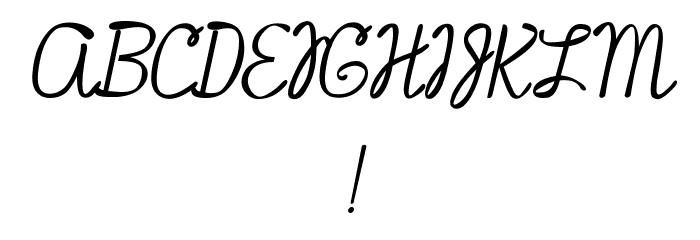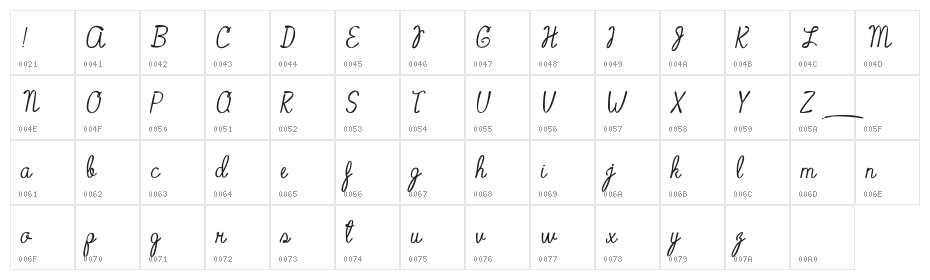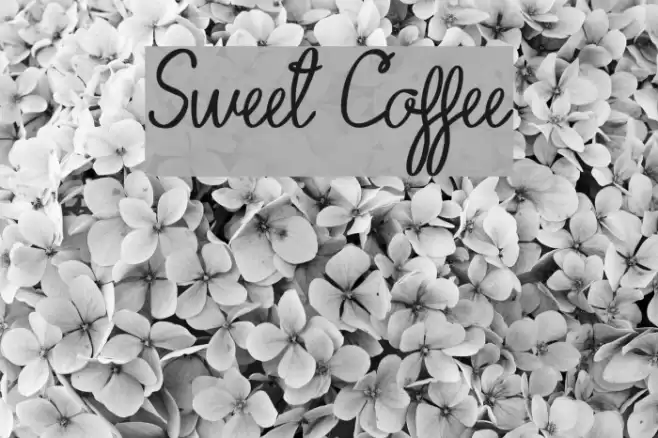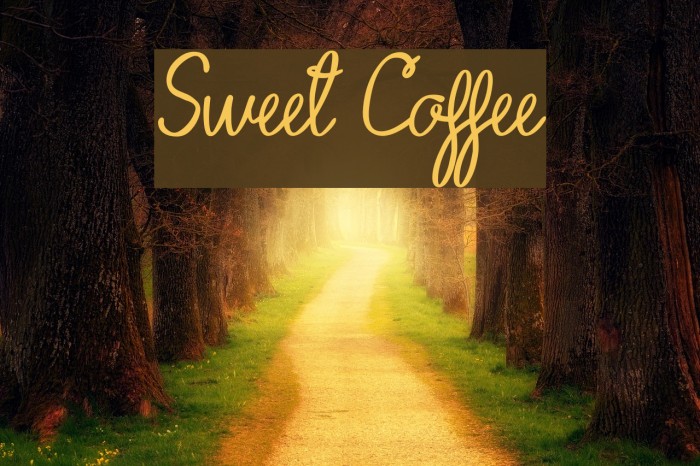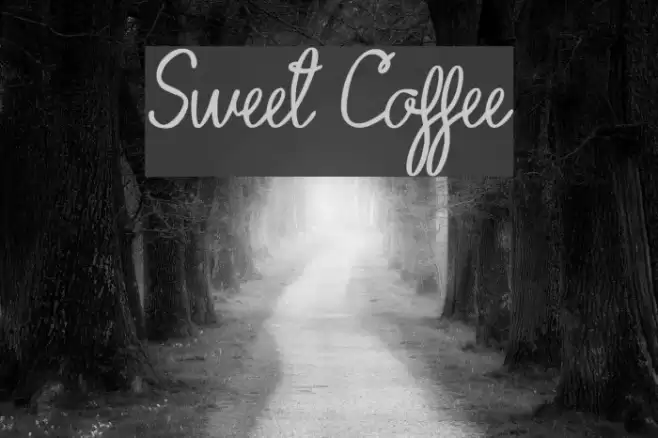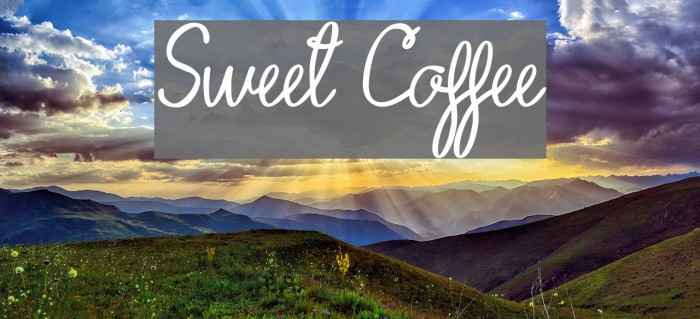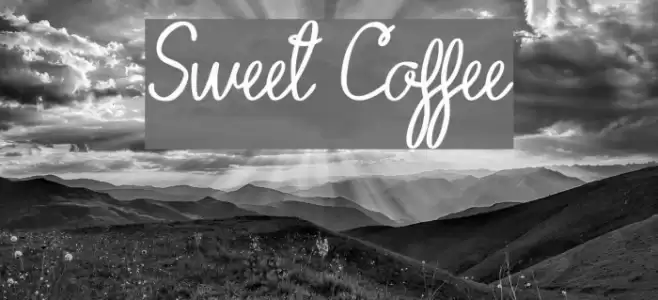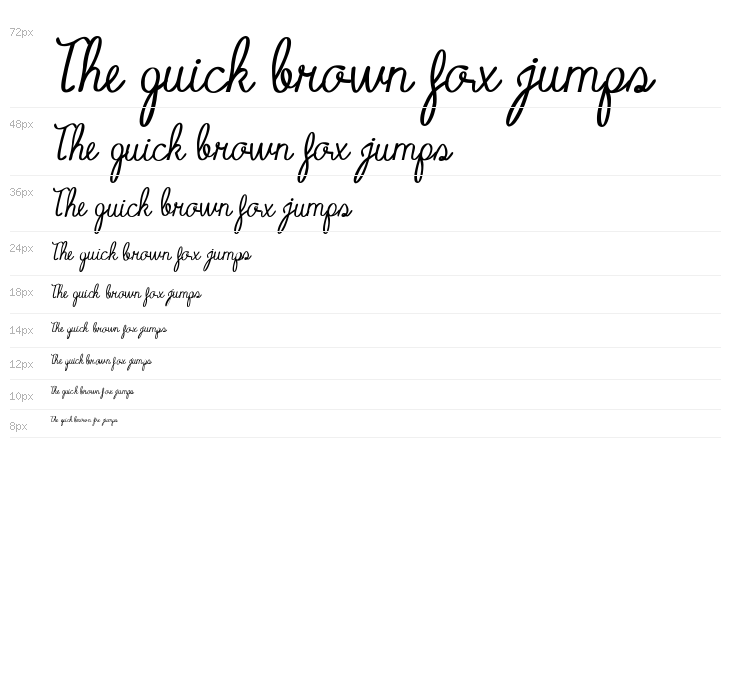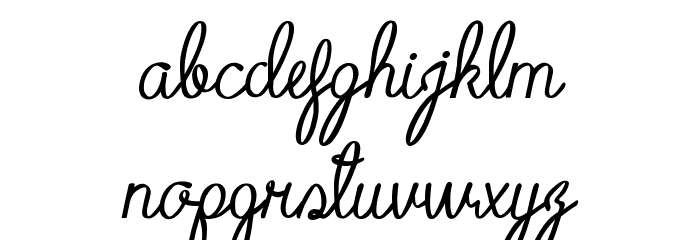
Sweet Coffee Font
Sweet Coffee Description
This font features a flowing, cursive style that exudes elegance and sophistication. The letters are interconnected with smooth, sweeping strokes that create a sense of fluidity and grace. The uppercase characters are bold and prominent, while the lowercase letters maintain a consistent, harmonious flow. The font's design is reminiscent of classic calligraphy, with a modern twist that makes it suitable for contemporary applications. The characters are well-spaced, allowing for readability while maintaining an artistic flair. This font is ideal for projects that require a touch of elegance and style, such as invitations, branding, and decorative text.
| Overall Style | Elegant, Modern |
| Use Case | Invitations, Decorative text, Branding |
| Proposed Projects | Ideal for wedding invitations, elegant branding, and decorative text. |